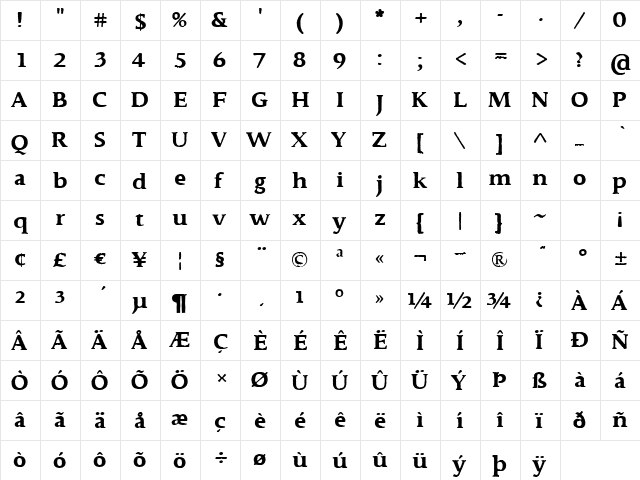
DenimMedium Regular
Design Context for DenimMedium Typeface
DenimMedium offers clean, dependable letterforms without strong stylistic allegiance, making it a practical choice for designers who need flexibility.